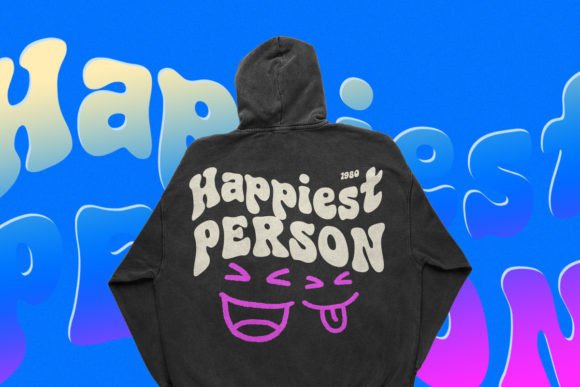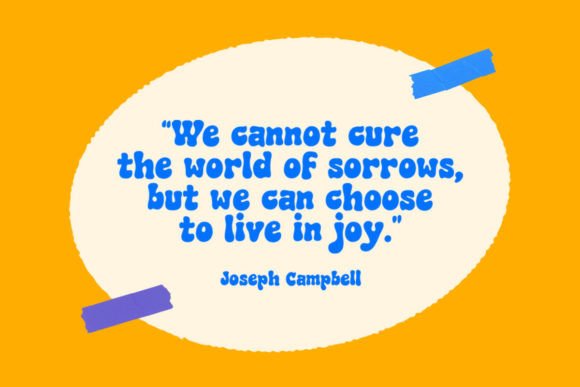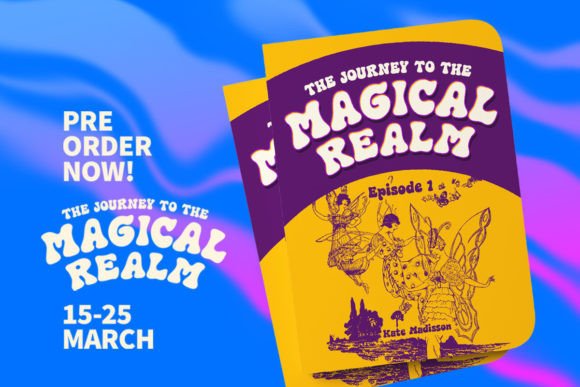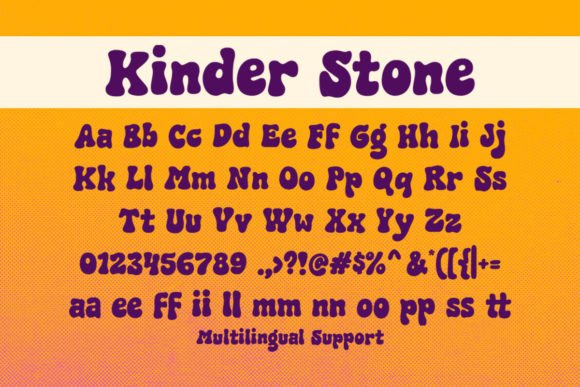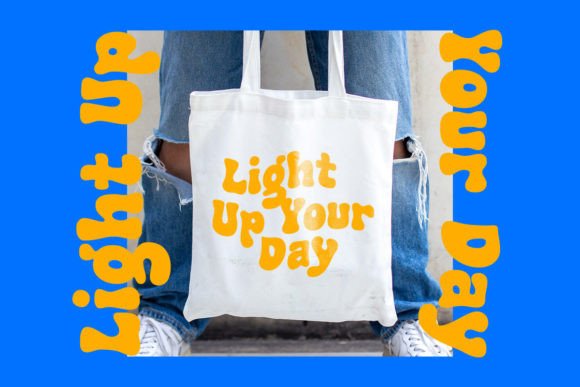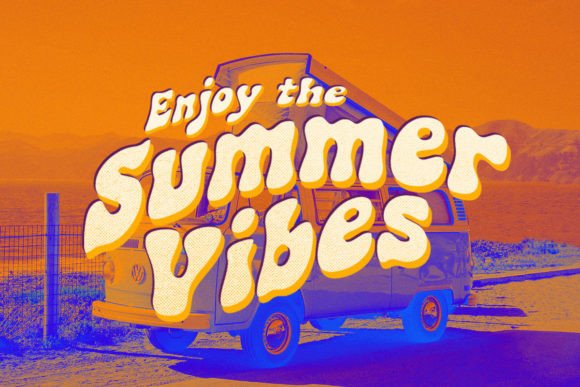
Introduction to Kinder Stone Font
Have you ever stared at a blank page, struggling to find the perfect font to bring your creative project to life? We’ve all been there – the cursor blinks, and the pressure mounts. But what if I told you that the perfect font is just a click away? Introducing Kinder Stone Font, the ultimate design resource for adding a dash of personality to your designs.
Kinder Stone Font is more than just a font – it’s a statement piece that can elevate your designs from ordinary to extraordinary. With its high-quality, rounded, and bubbly letters, this font is perfect for creating logos, posters, and other designs that need a touch of whimsy and humor.
As a designer, you know how valuable a versatile font can be. Kinder Stone Font is available for free download, making it an accessible and transparent background option for any creative project. Whether you’re working on a personal or professional project, Kinder Stone Font is sure to bring a smile to your face and a touch of magic to your designs.
Key Features of Kinder Stone Font
- High-quality vector design, ideal for creative projects and design resources.
- Transparent background, allowing for seamless integration into various design environments.
- Unique characteristics: Kinder Stone Font features a distinctive, hand-drawn style with intricate details, making it perfect for adding a personal touch to any design project.
Honest Review: Kinder Stone Font
As a designer, I’m always on the lookout for high-quality fonts that can elevate my creative projects. The Kinder Stone Font is a beautiful addition to my design resource collection.
What works well with Kinder Stone Font is its versatility. It’s perfect for both digital and print projects, thanks to its transparent background. This makes it a great choice for designers who want to add a touch of sophistication to their designs without any distractions.
I particularly love how Kinder Stone Font can be used in a variety of creative ways. Here are some of its key features:
- High-quality design that’s perfect for professional projects
- Transparent background for easy integration into any design
However, one limitation of Kinder Stone Font is its limited character set. While it’s still a great resource, it may not be suitable for projects that require a large number of font styles.
Overall, Kinder Stone Font is a great addition to any designer’s toolkit. With its high-quality design, transparent background, and versatility, it’s a great choice for any creative project.
Kinder Stone Font
The Kinder Stone Font is a high-quality design resource ideal for creative projects. Its unique, modern design makes it perfect for various applications, including digital and print media.
Tips for Getting the Most Out of Kinder Stone Font
To get the most out of the Kinder Stone Font, use it on a transparent background to create a modern and sleek design. You can also combine it with other design elements, such as images or shapes, to add visual interest to your project.
The Kinder Stone Font is ideal for various applications, including:
- Website headers and footers
- Social media graphics and ads
- Print and digital magazines
Yes, the Kinder Stone Font features a transparent background, allowing for seamless integration with your design elements and making it easier to customize your creative project.
Q: What is the recommended usage for the Kinder Stone Font?
The Kinder Stone Font is a versatile design resource that can be used for a variety of creative projects, including branding, advertising, and digital design. It’s perfect for designers looking for a high-quality font to enhance their design work and add a unique touch to their projects.